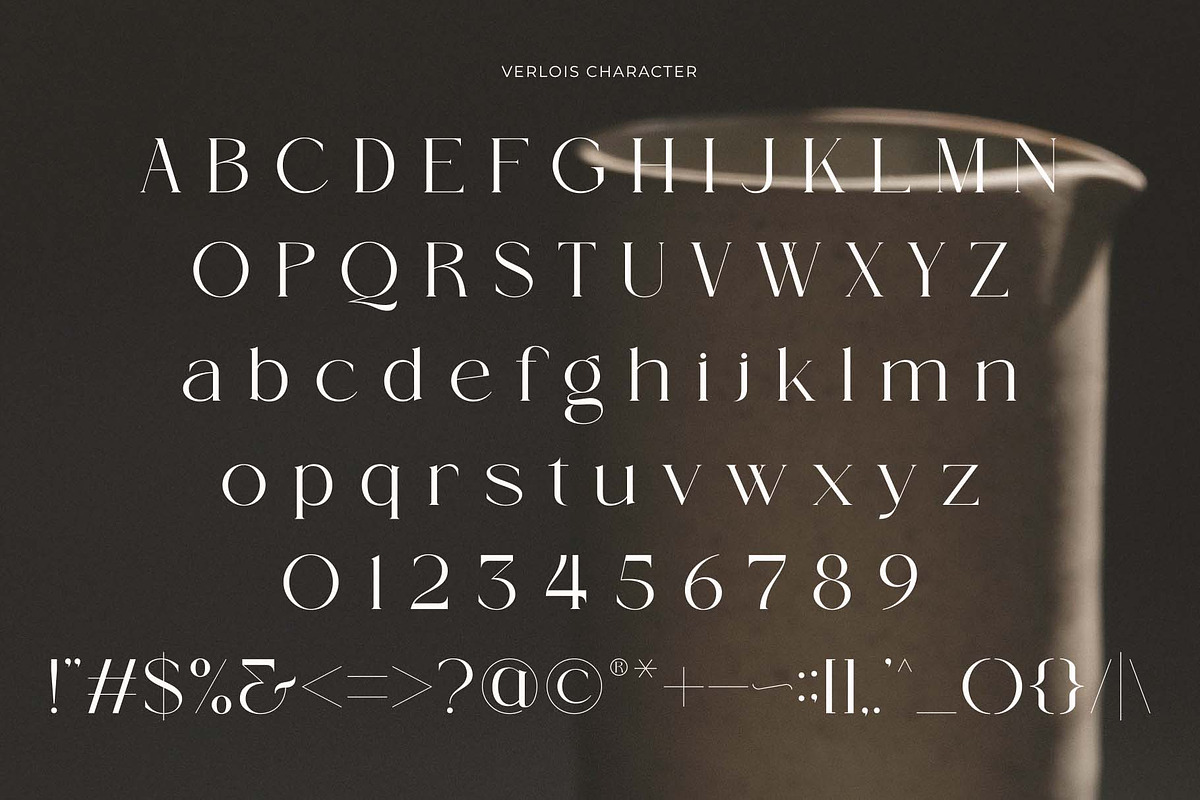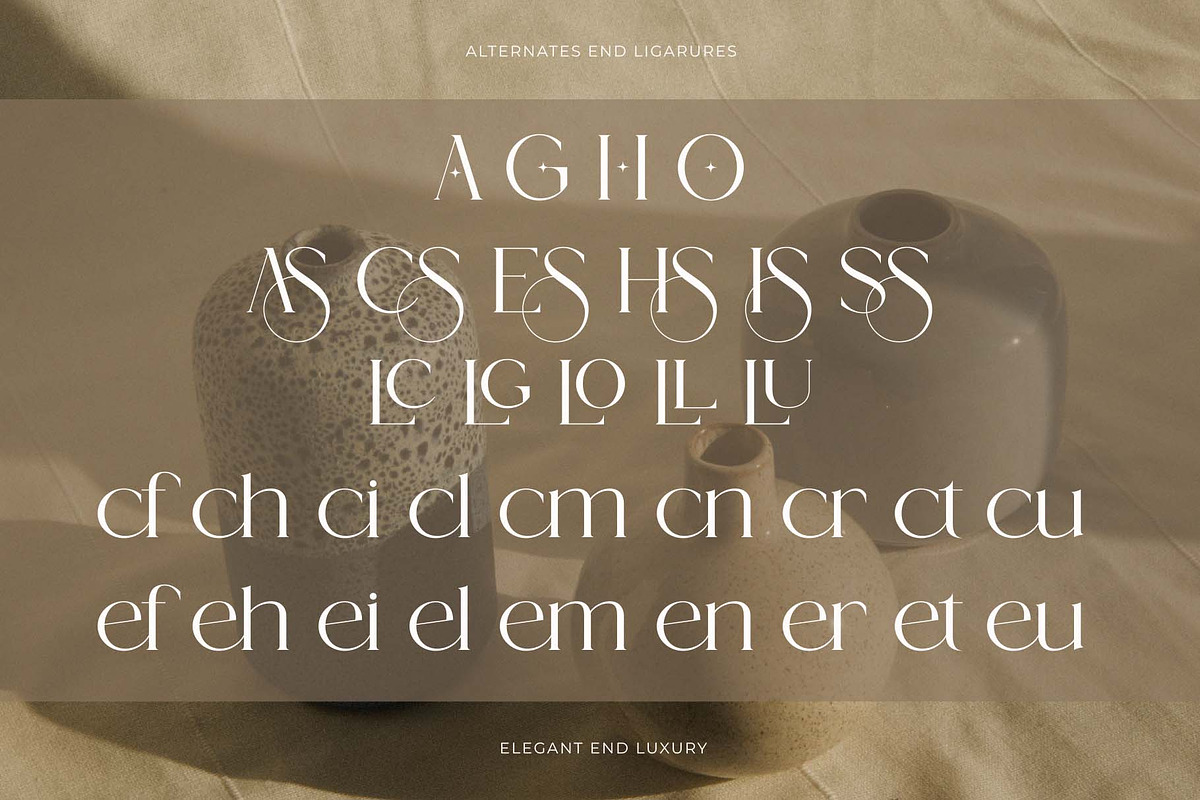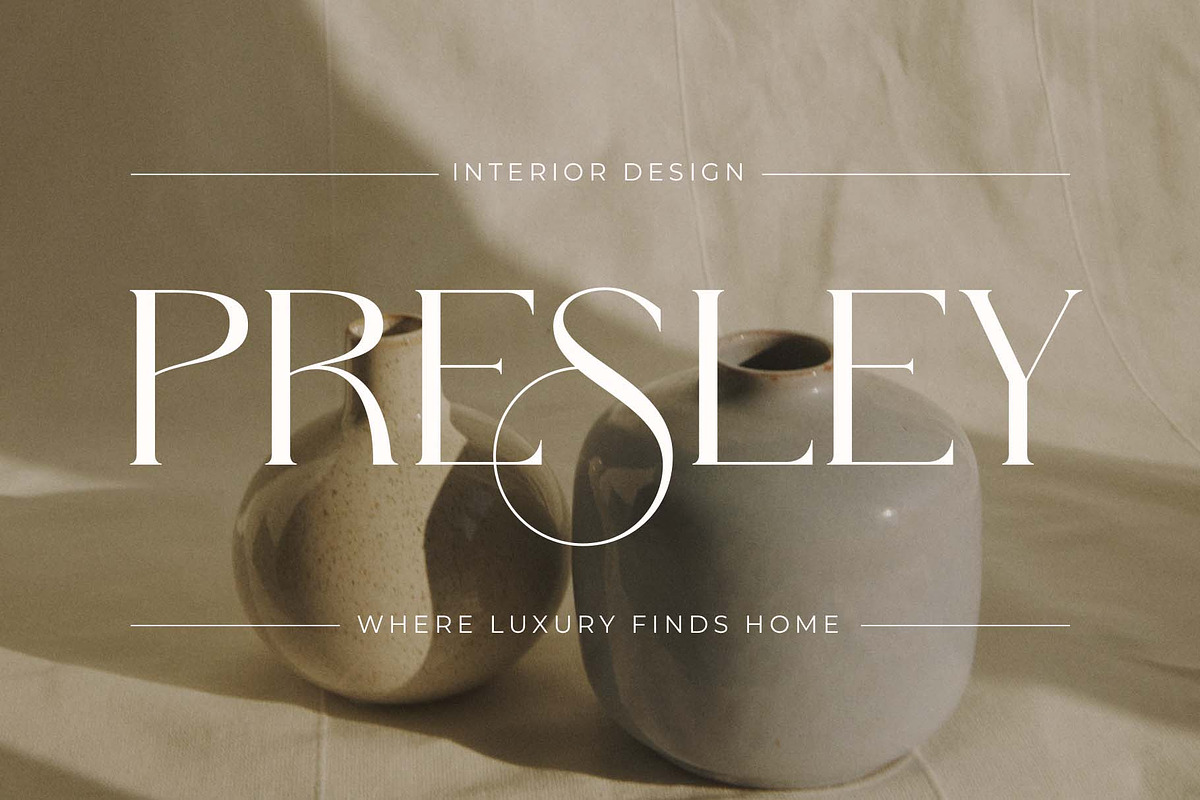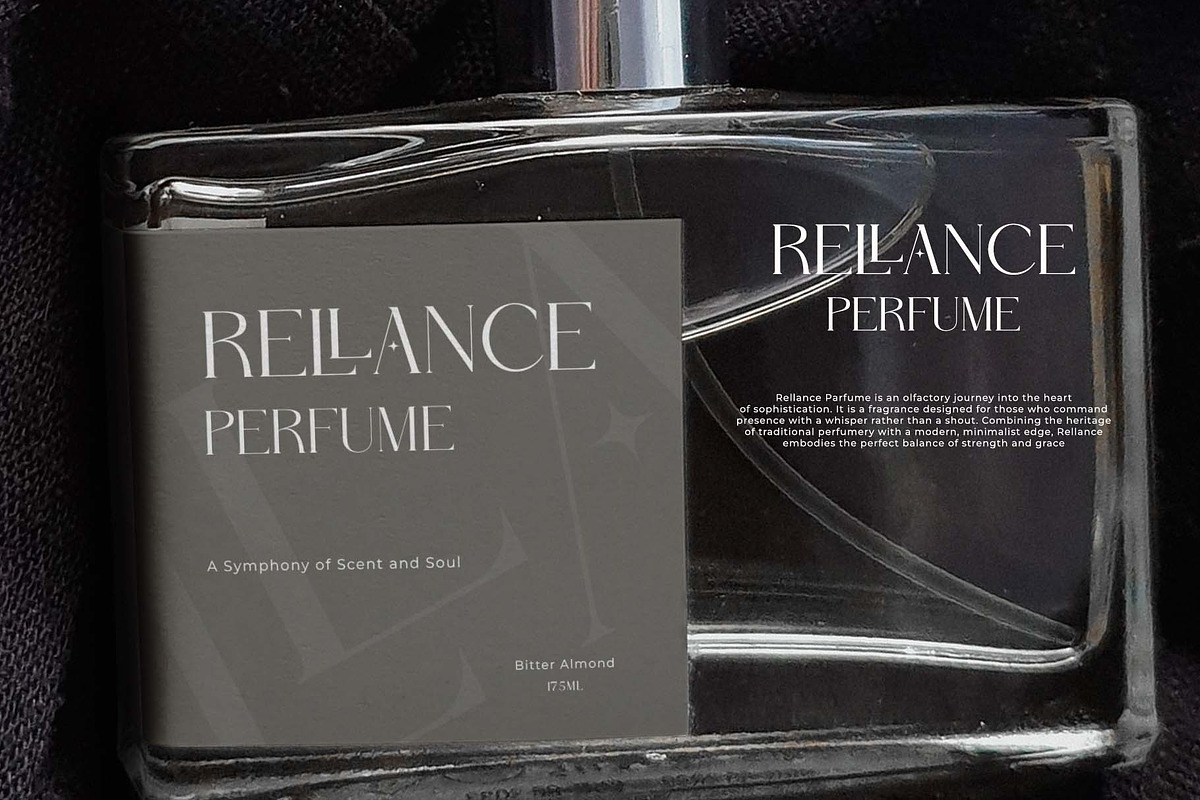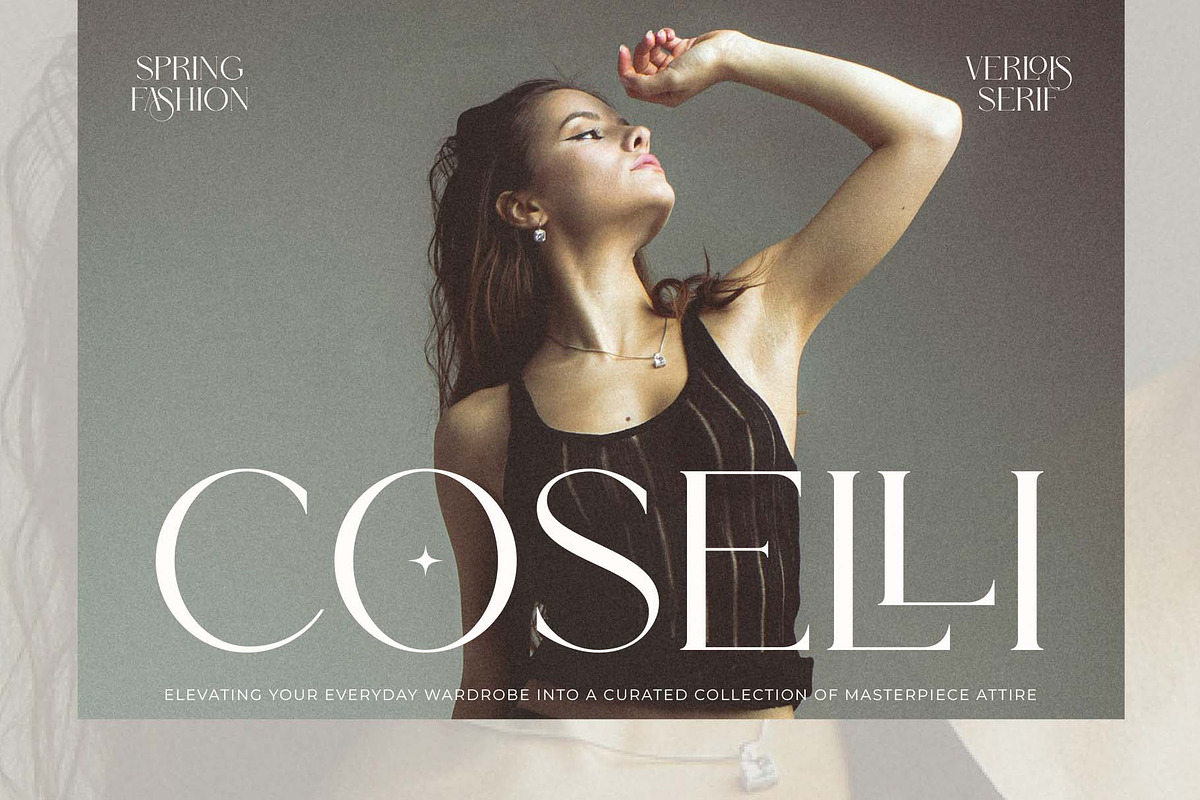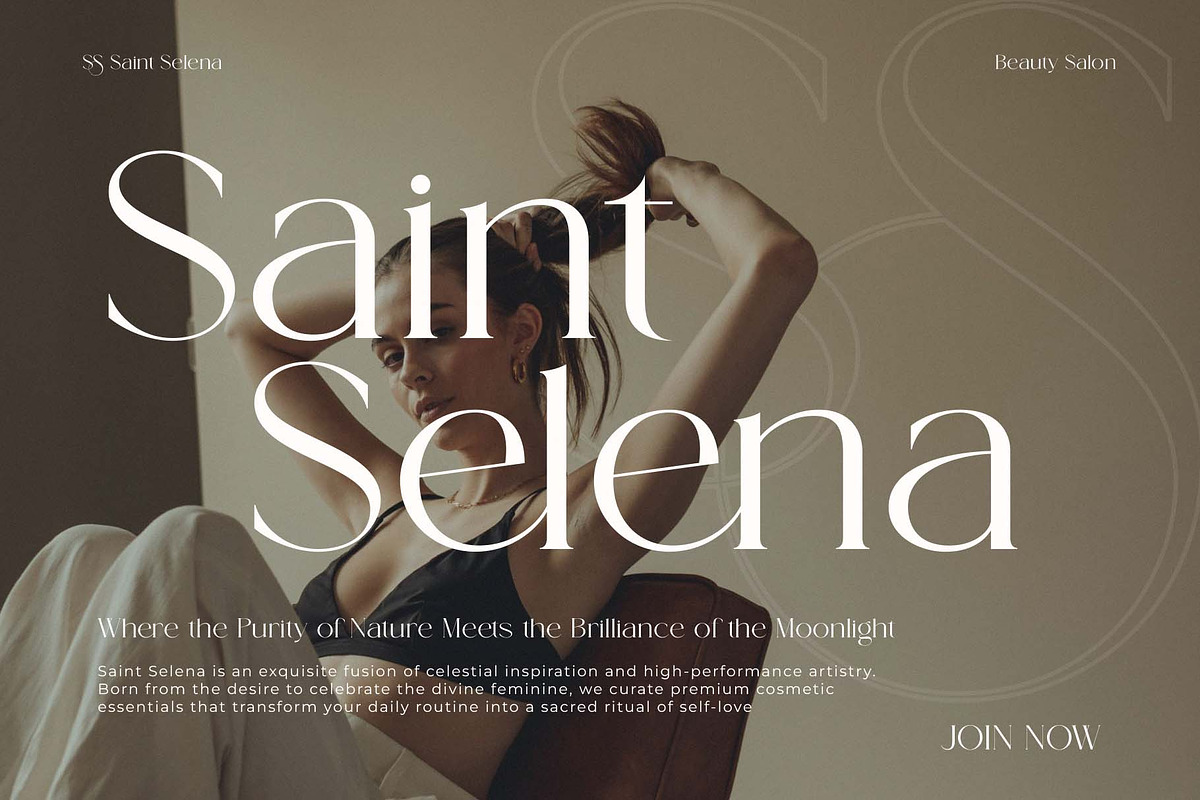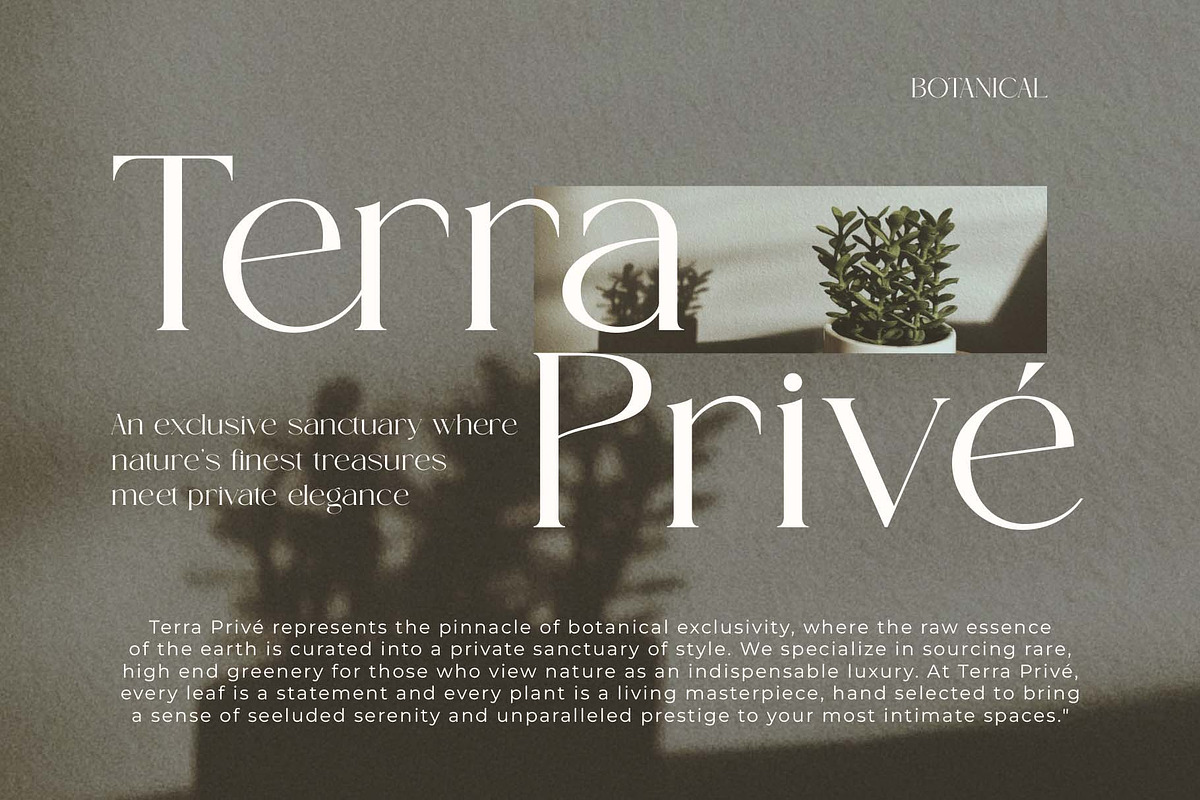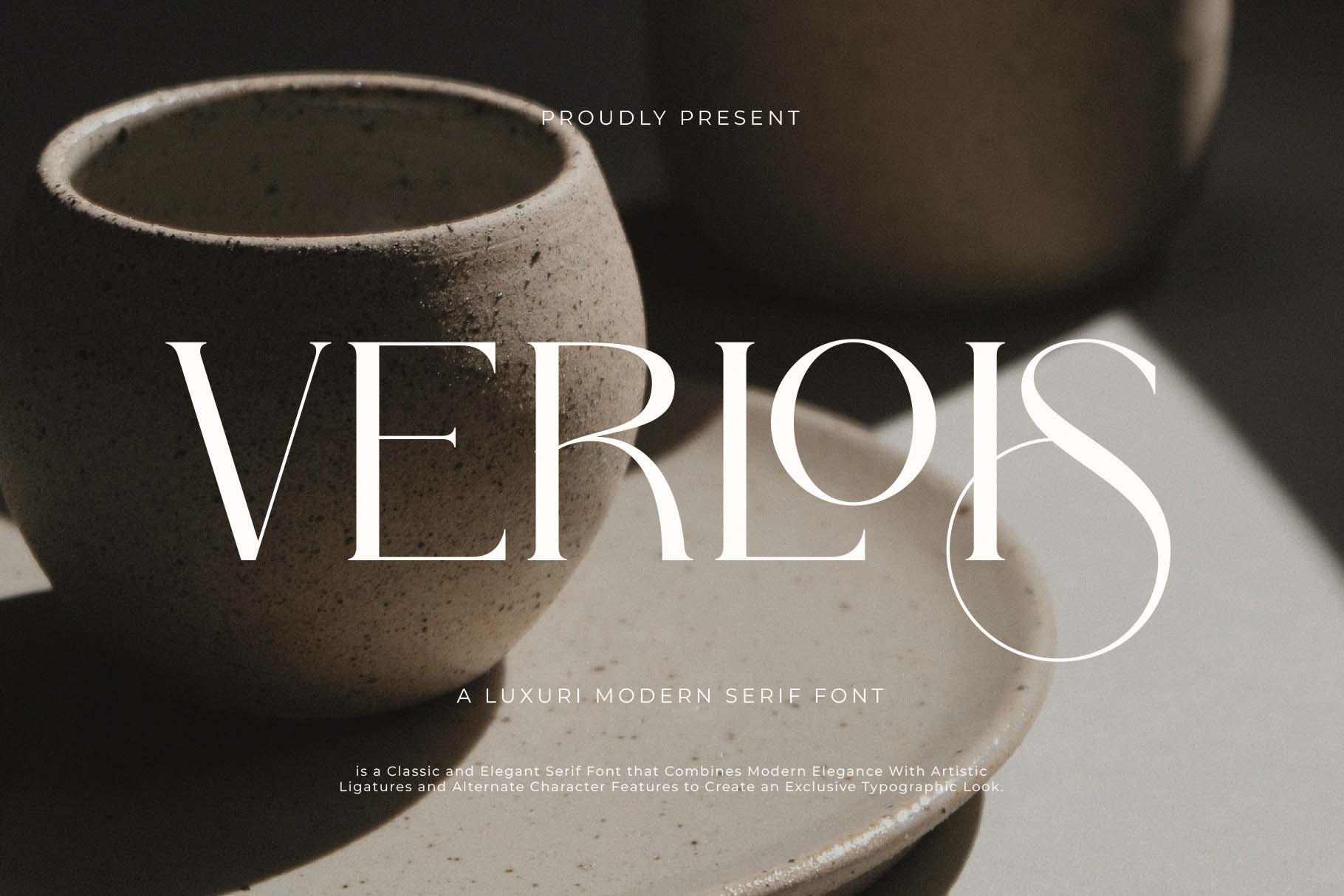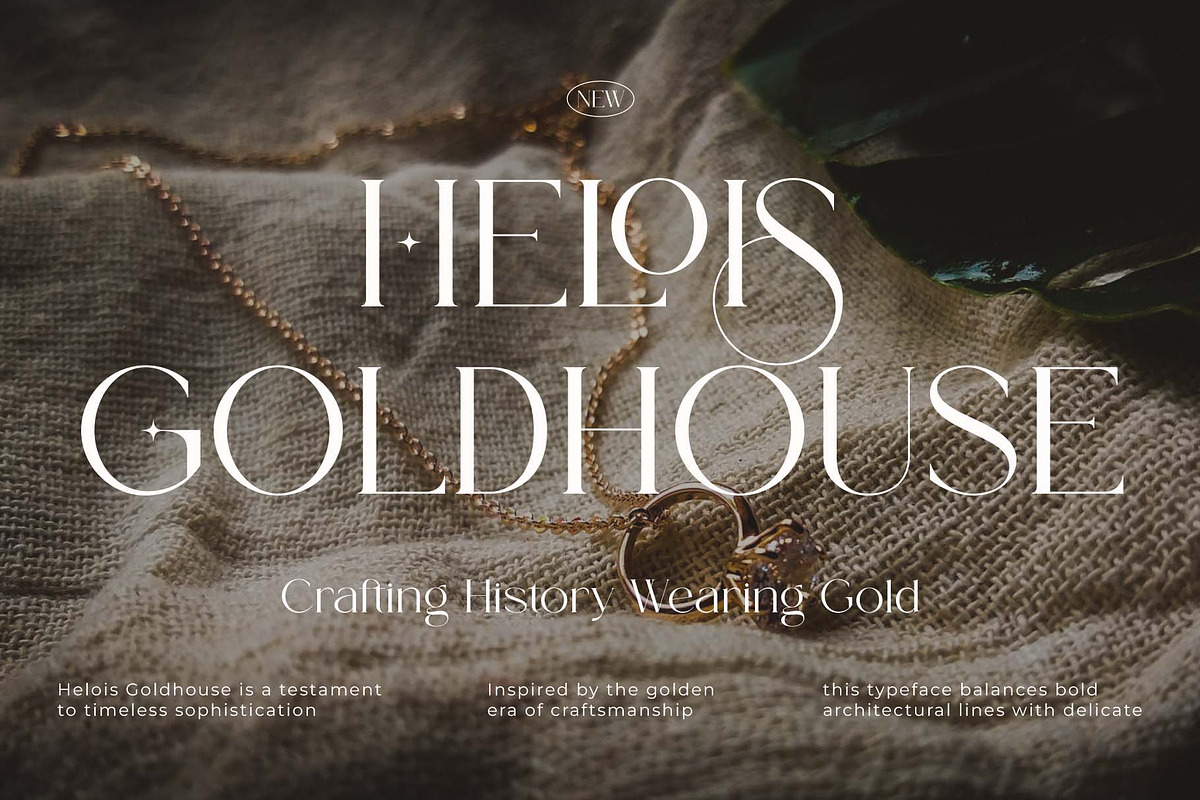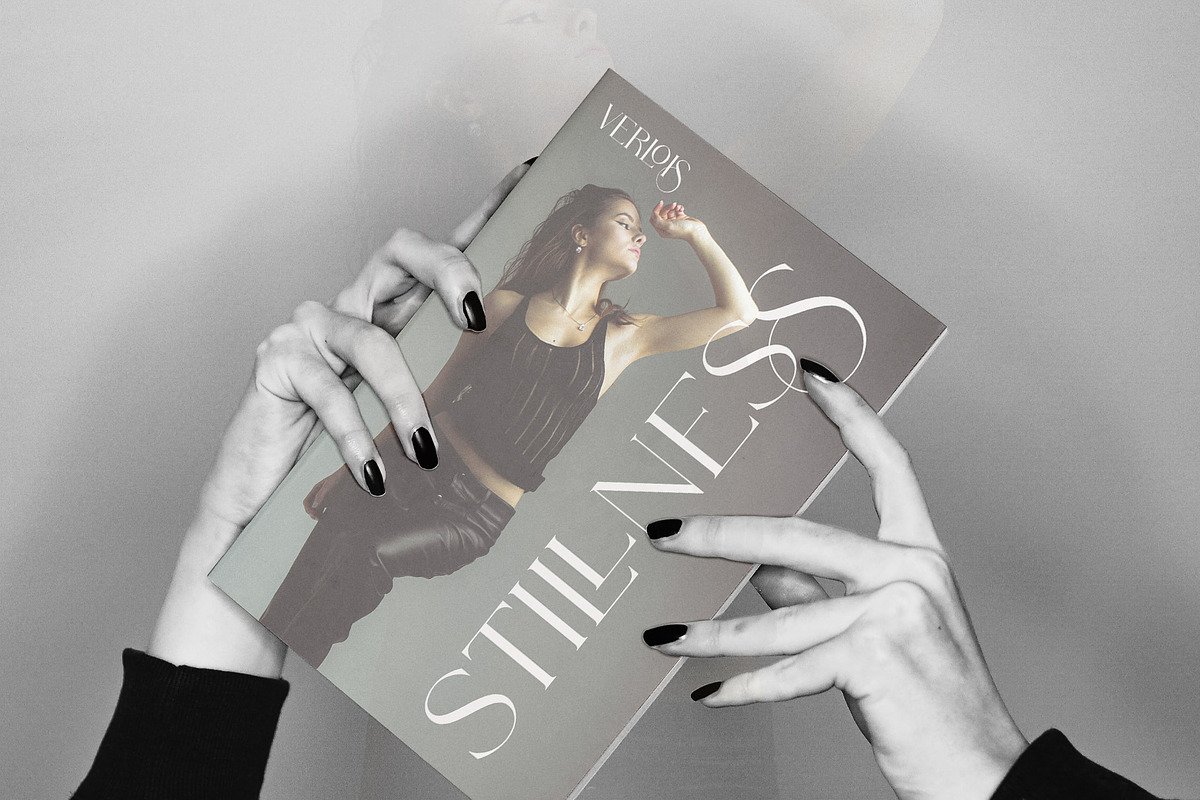
Verloise – Luxury Modern Serif Font
Introducing Verloise the elegant, beautiful, and modern Serif. With its modern and minimalist look, Verloise brings a luxurious, classy, and clean style to your projects such as websites, modern logos, brand identities, social media quotes, wedding stationery, magazines, and more!
Verloise features unique and classy capital letters A to Z and also comes with unique alternates and ligatures making Verloise a beautiful font that can be customized for various projects and jobs you want.
\- Uppercase and lowercase letters
\- Multilingual Characters
\- Numbers & punctuation
\- ligatures & Alternates